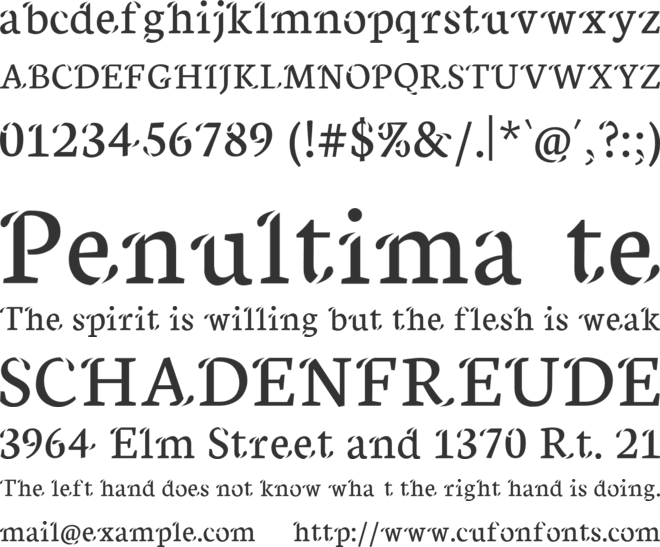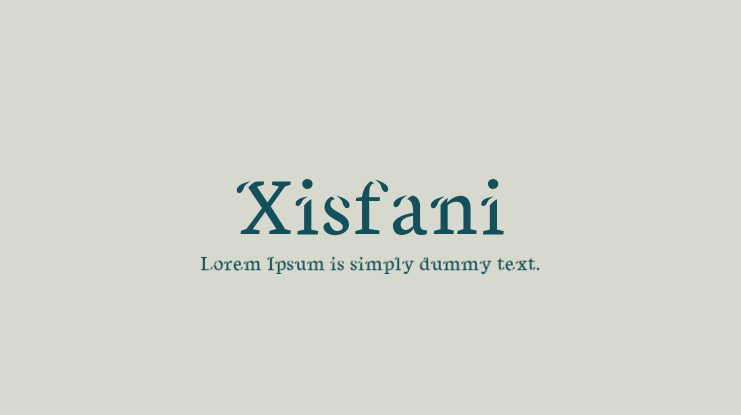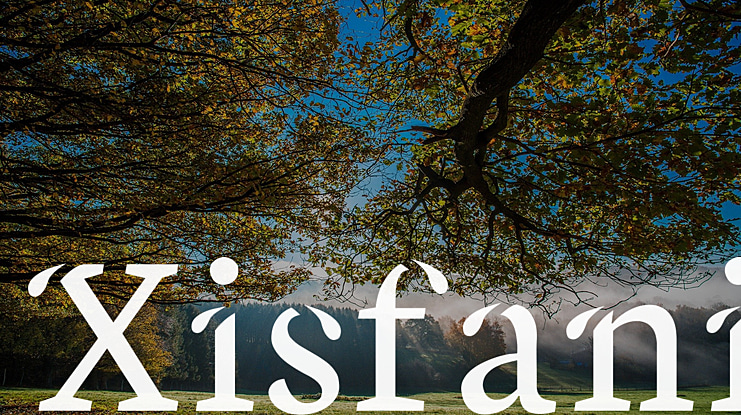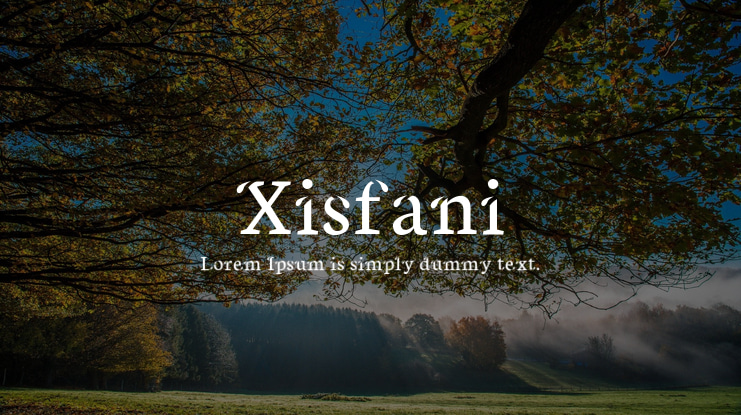
Xisfani Font
This typography is based on the mexican culture called Otomí. It's name means corn leaf , which is used in their textile designs. Hope you enjoy this playful type.